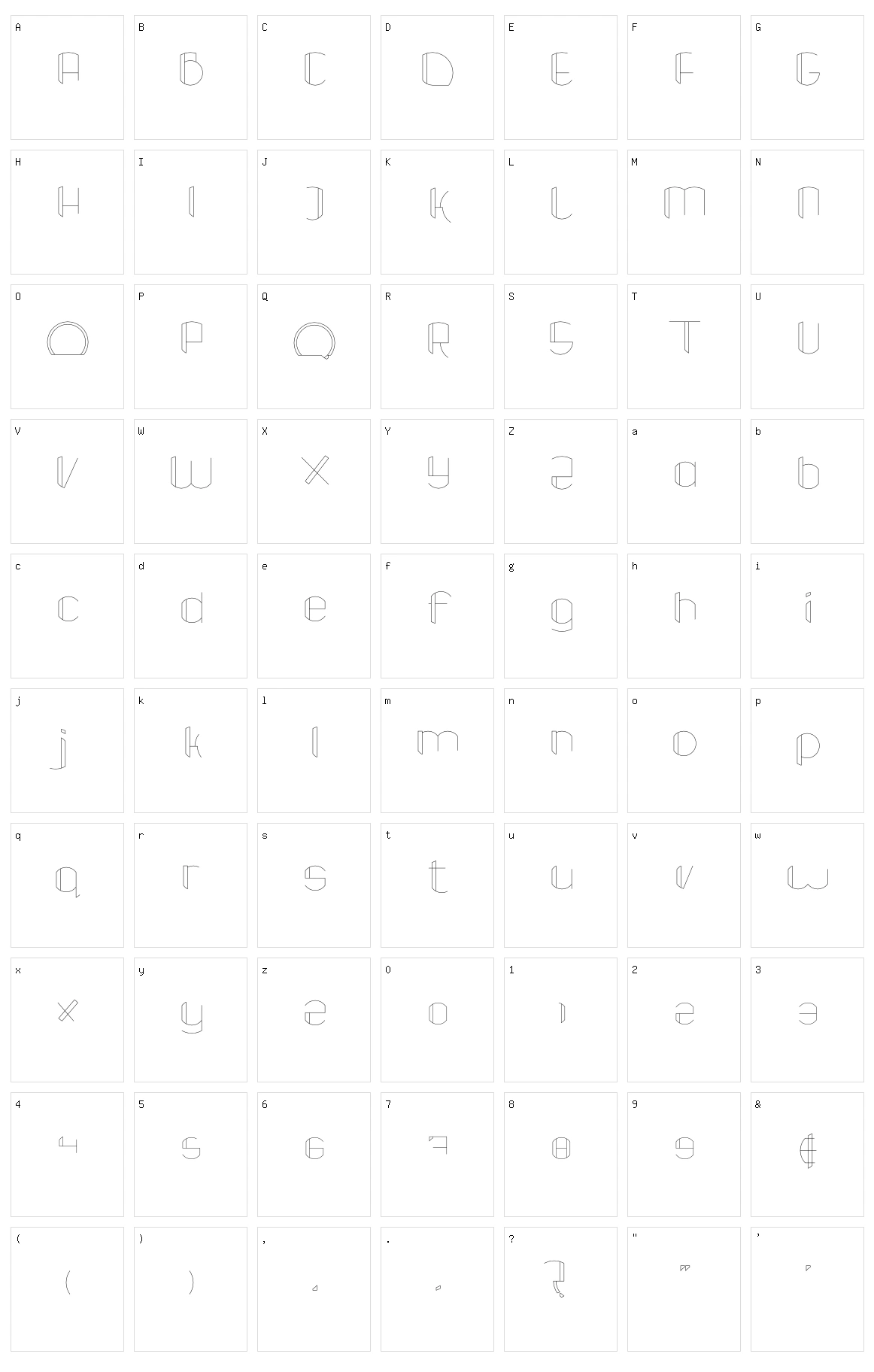
âªIf you're close to Nairobi City to see its tall buildings rising from the horizon, and if you happen to be standing at the side of the road waiting for a matatu to get you there, if it's your lucky day, you'll hear a makanga shout "Tao mbao! Tao mbao!" You'll get excited and you'll hurry to get into the matatu even as it begins to speed off. You'll have hardly settled down when the makanga will look at you expectantly, and you'll reach into your pocket. You'll shove aside the crinkly paper money and at the very bottom you'll find a single mbao, and you'll fish it out and hand it to the makanga, your thumb and index finger feeling its concentric circles between them. You'll probably feel a tiny pang at having to part with such a particularly shiny new mbao, but as you hand over the familiar copper-nickel-aluminium-bronze coin, you'll have a slight smile on your face because really, it's such a steal.â¬